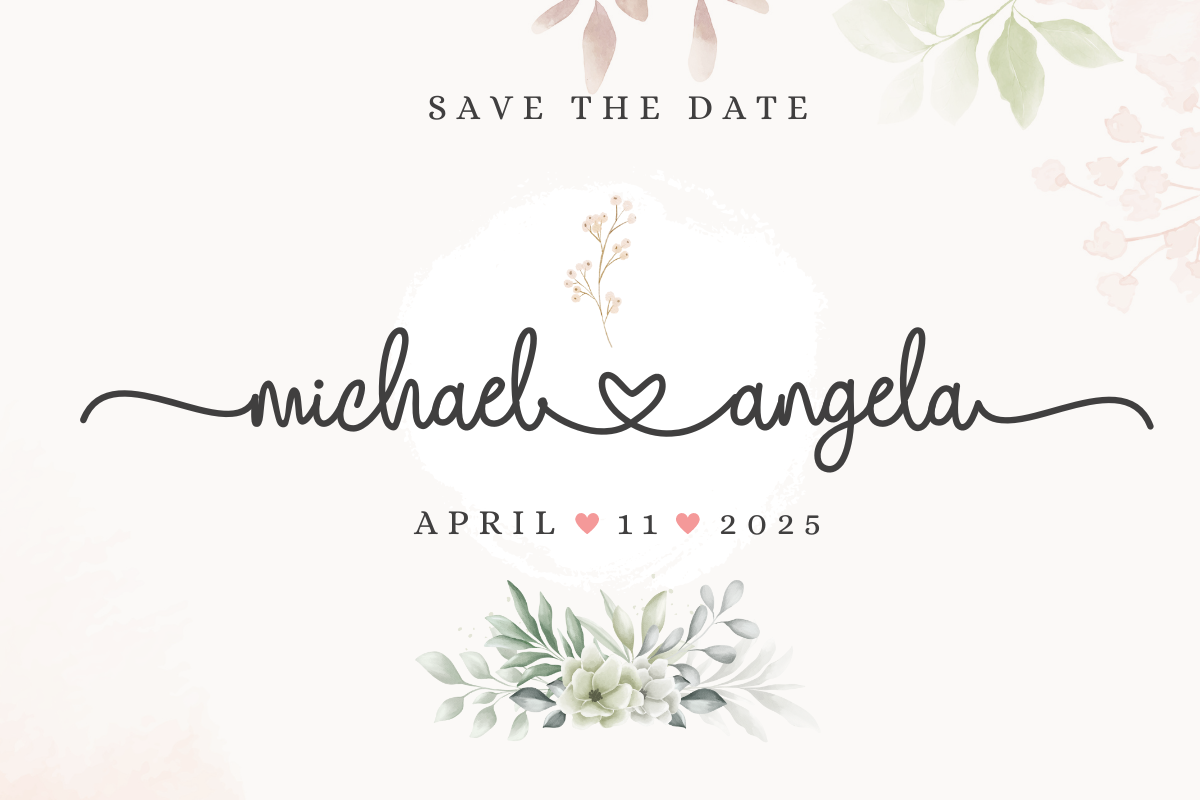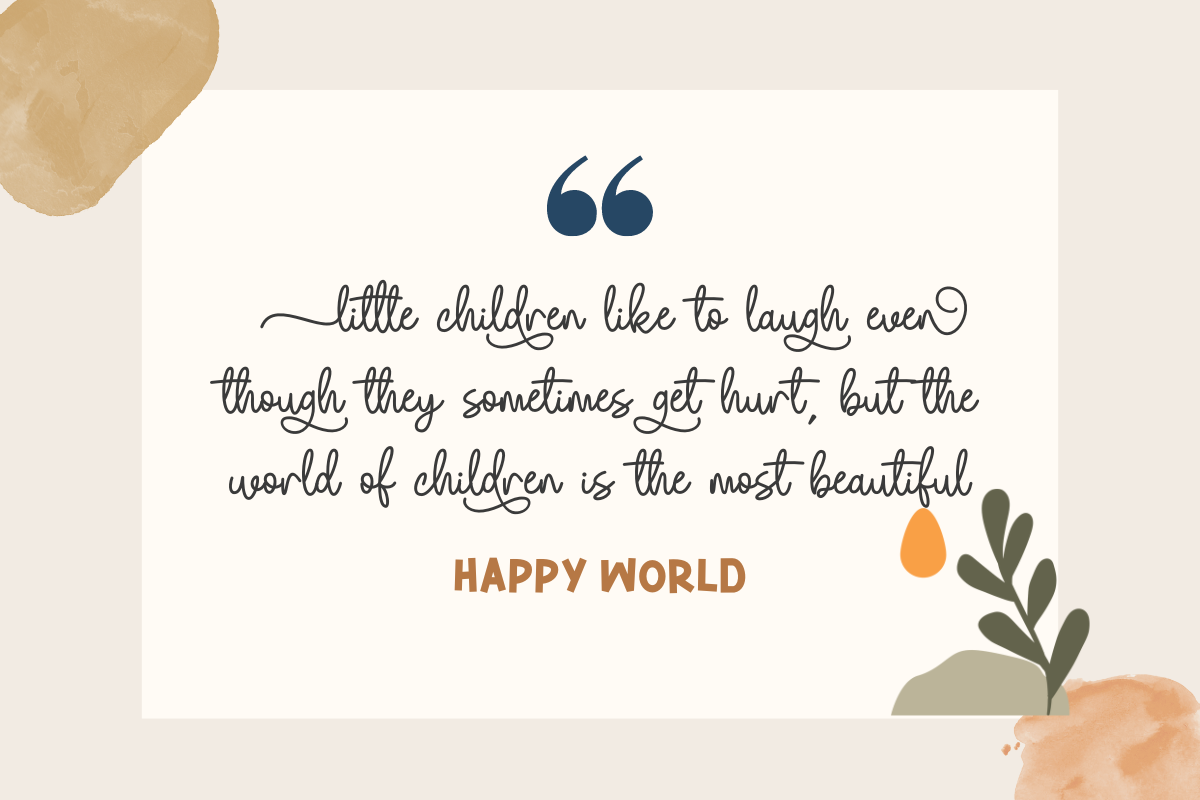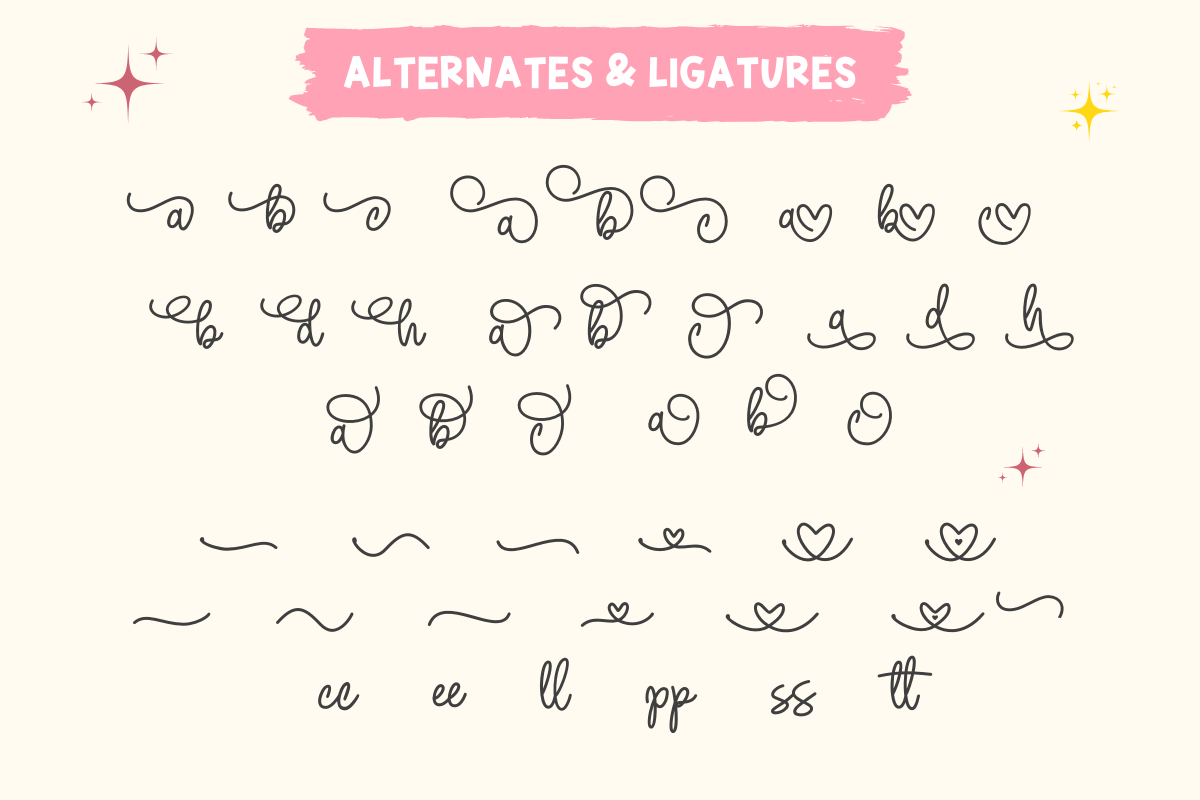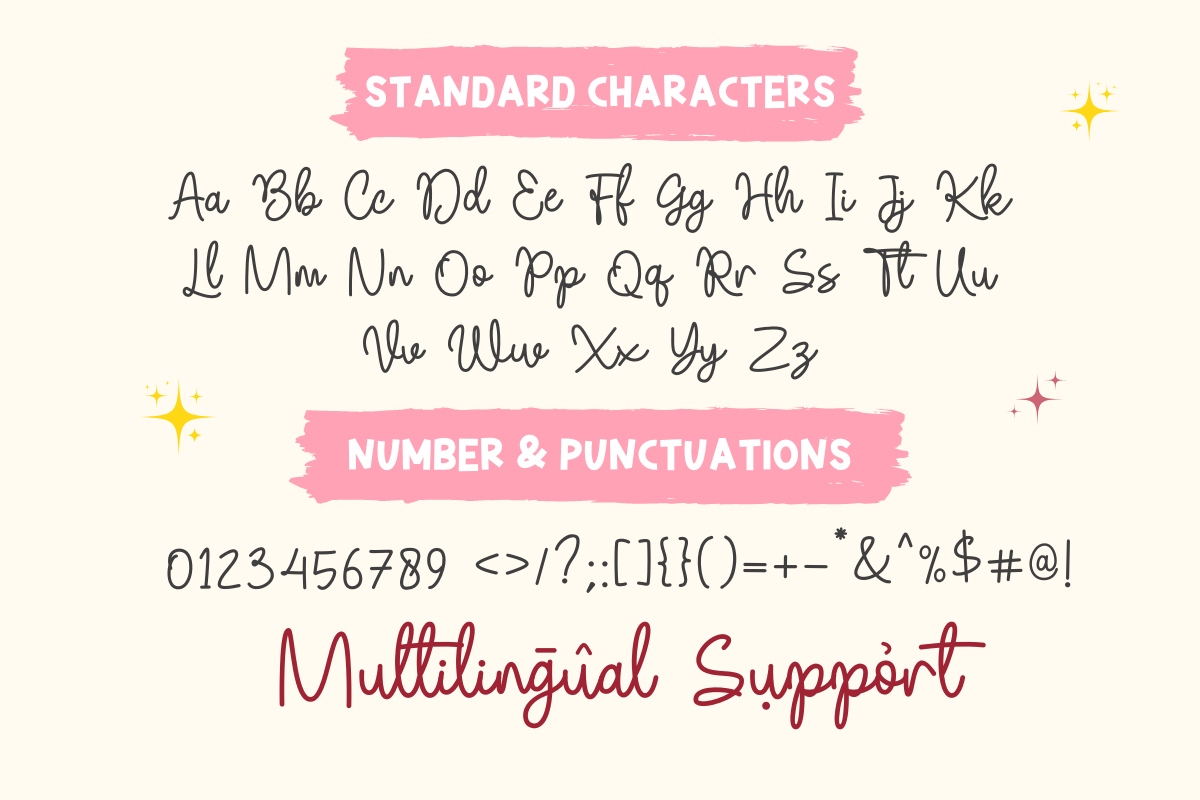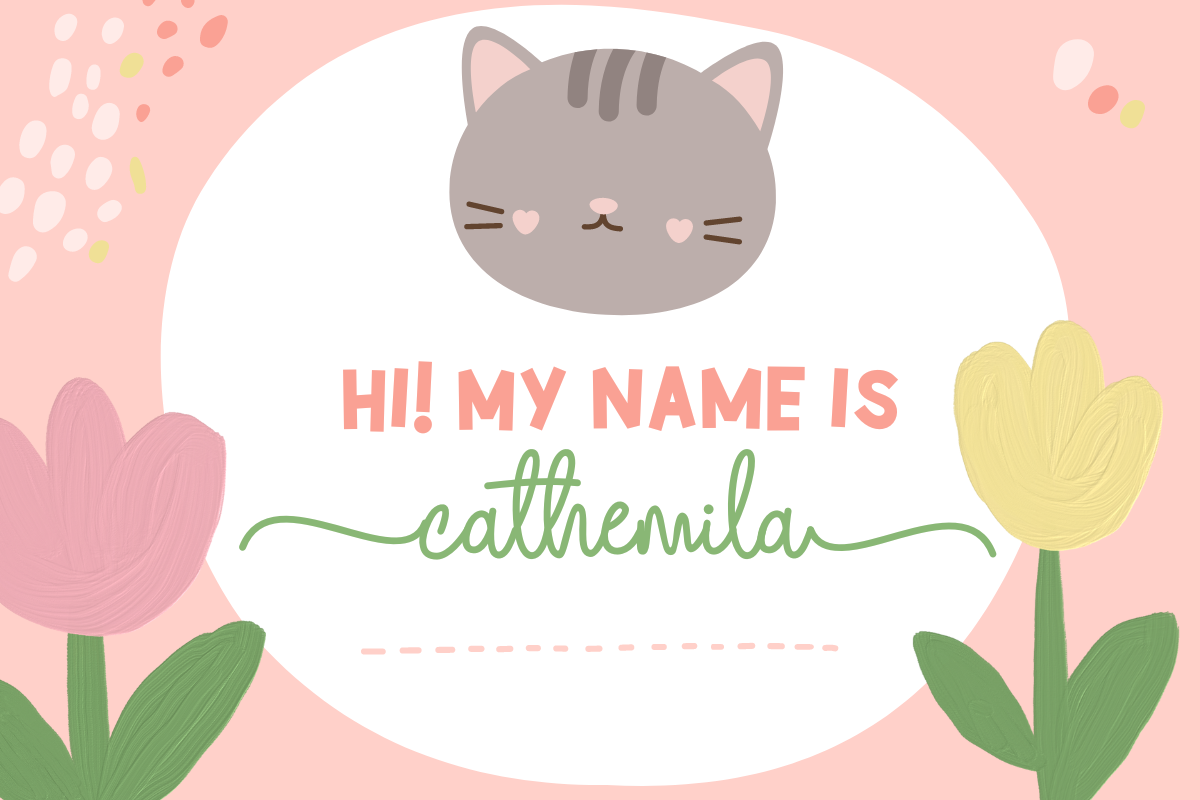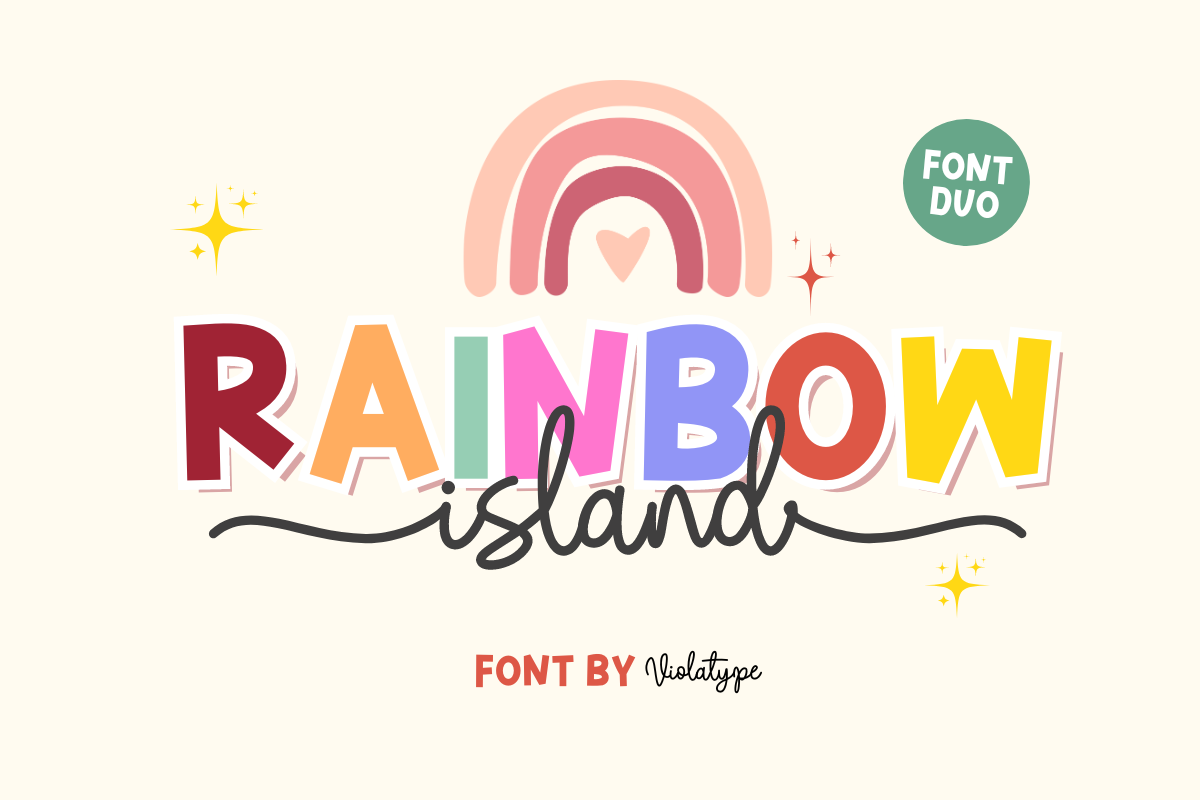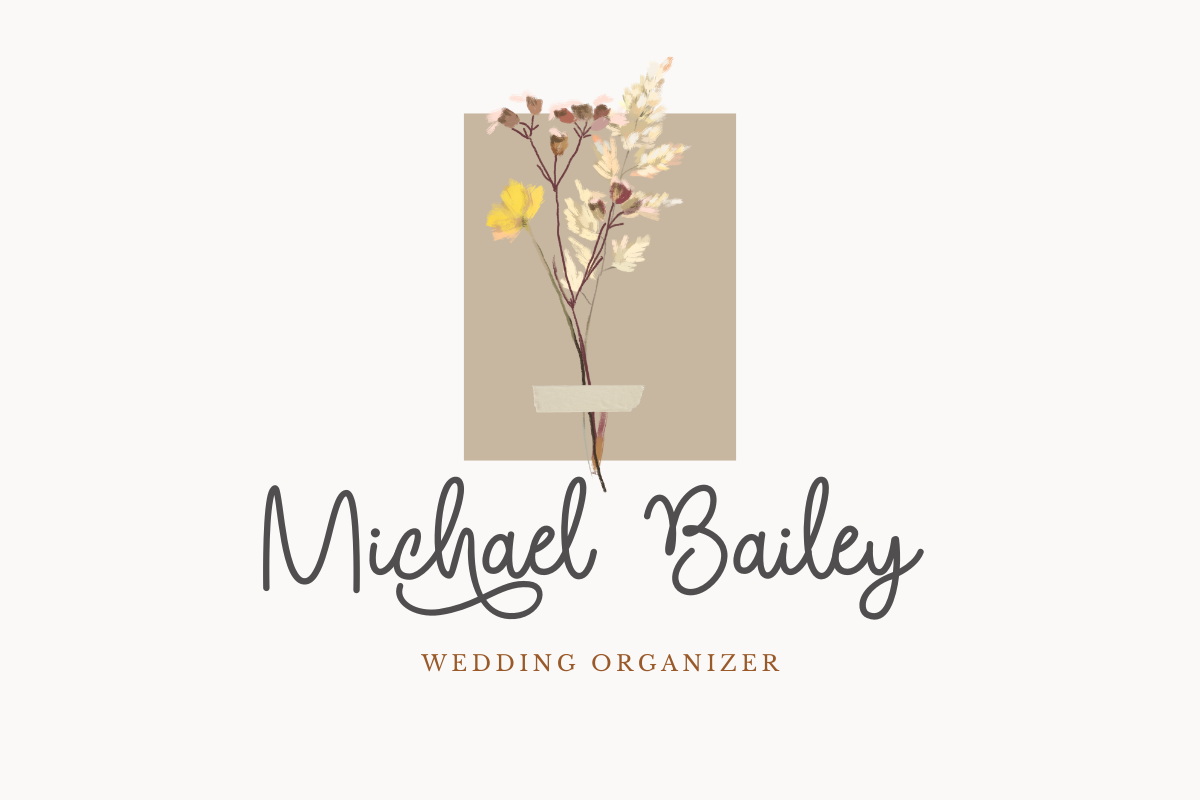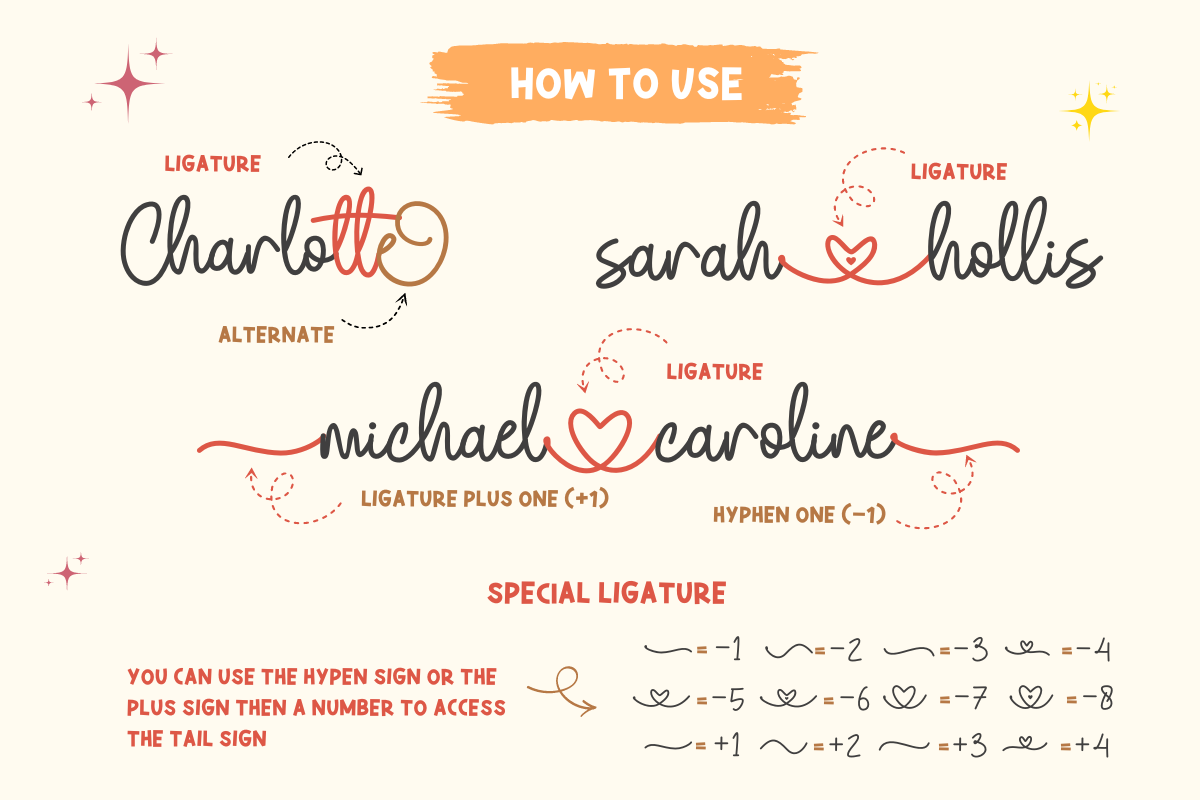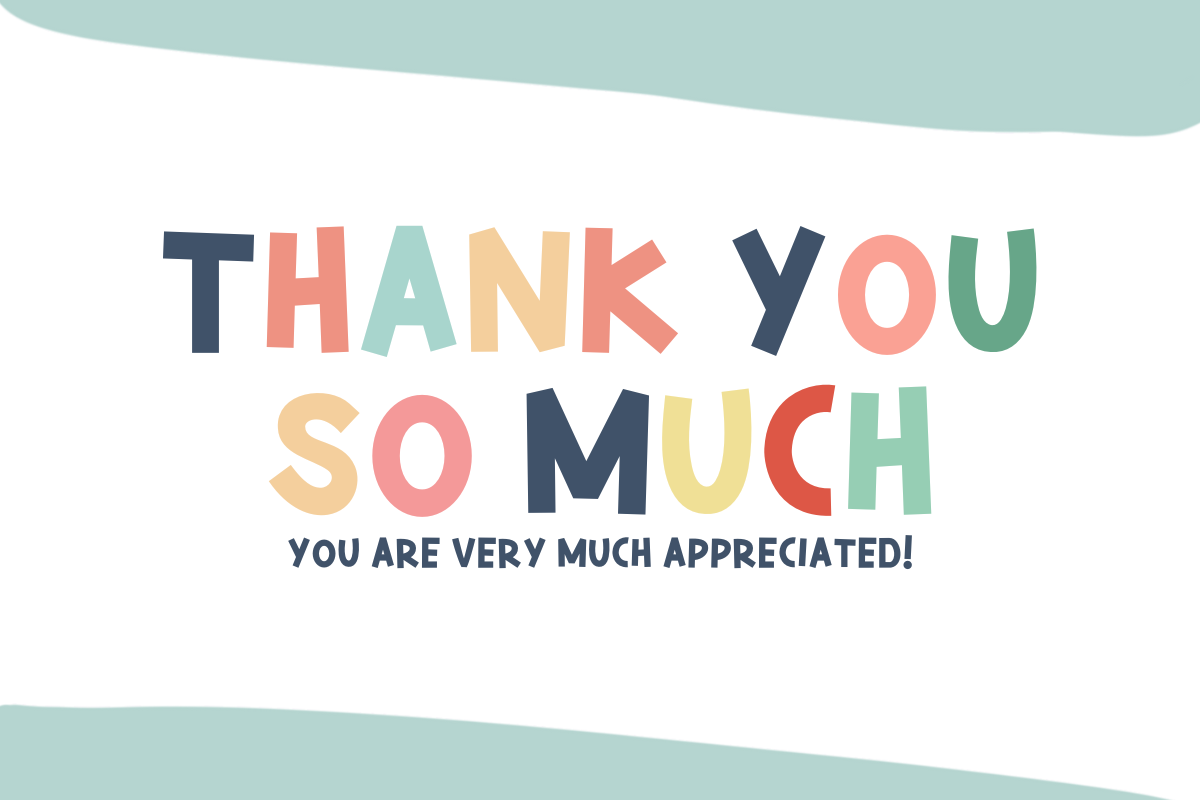
Rainbow Island - Font Duo
Rainbow Island is a duo font consisting of sans and script fonts, both of which are a suitable pair when you use it to create designs, not only that, we also provide 10 boho rainbows with high image quality that you can use to complete your design so that looks more aesthetic
There are lots of ligatures and alternates that you can use and they are quite easy to use, this can complete your design to make it unique and cute, besides that the Rainbow Island font supports 90 multi-languages